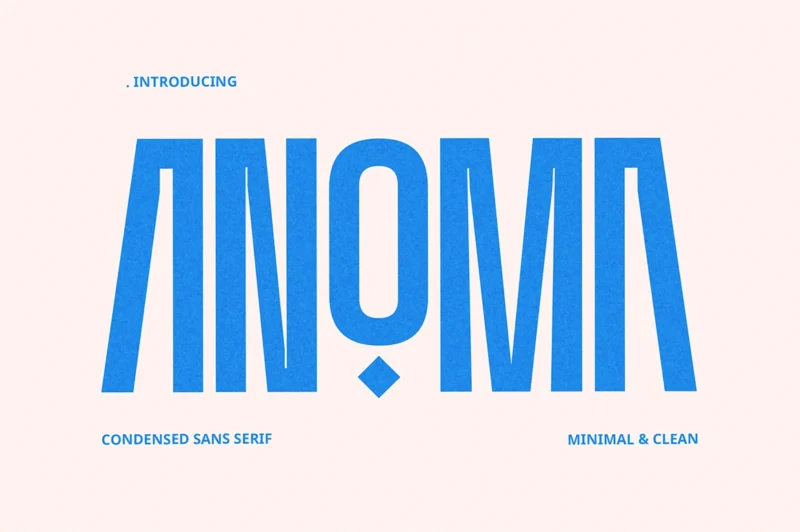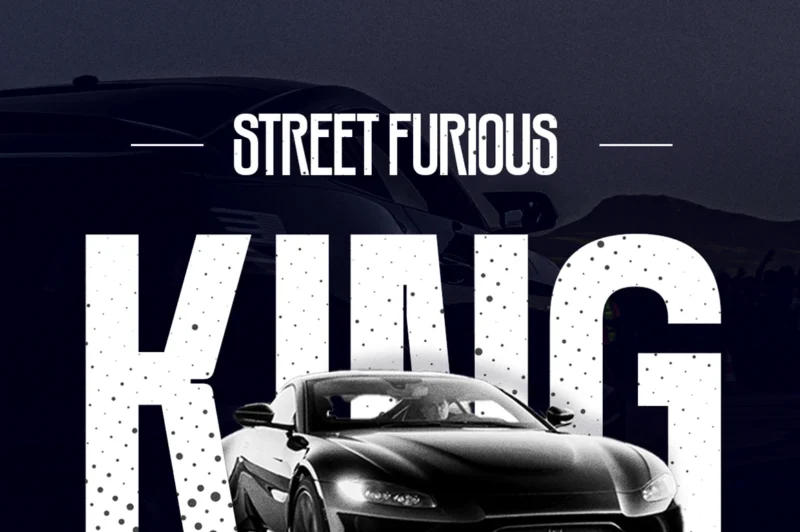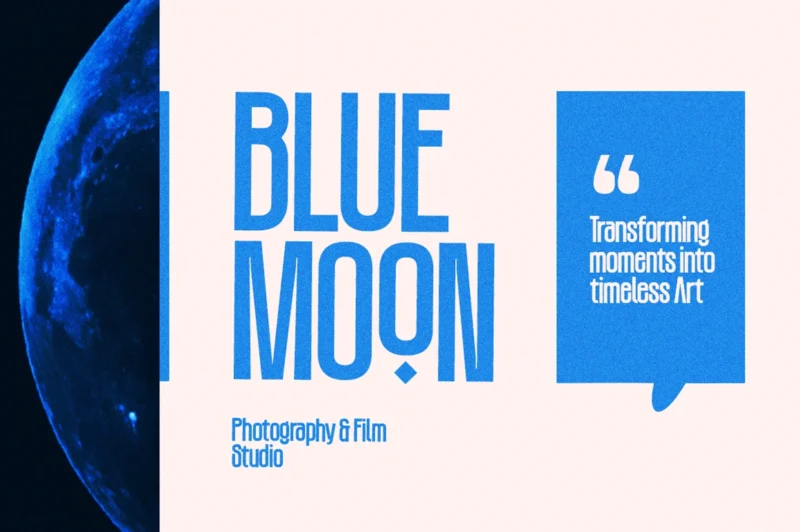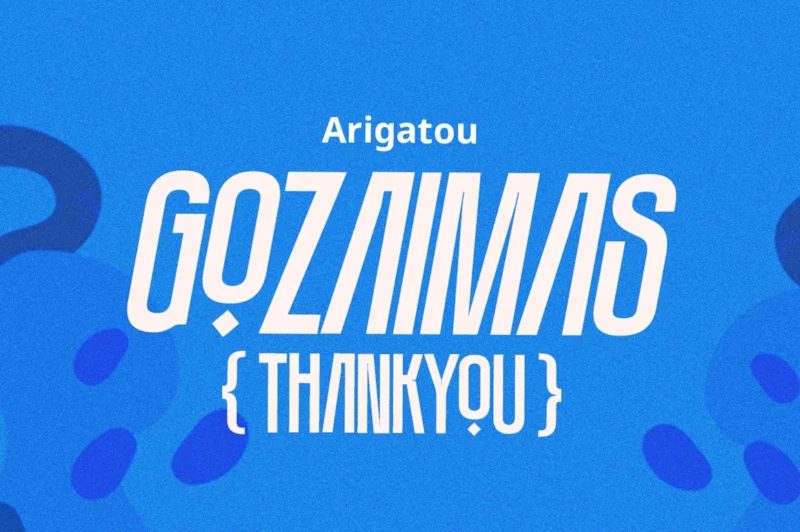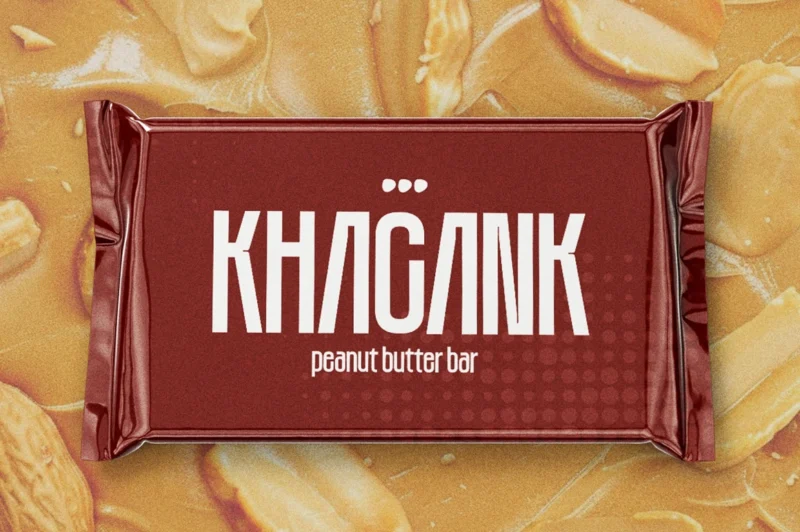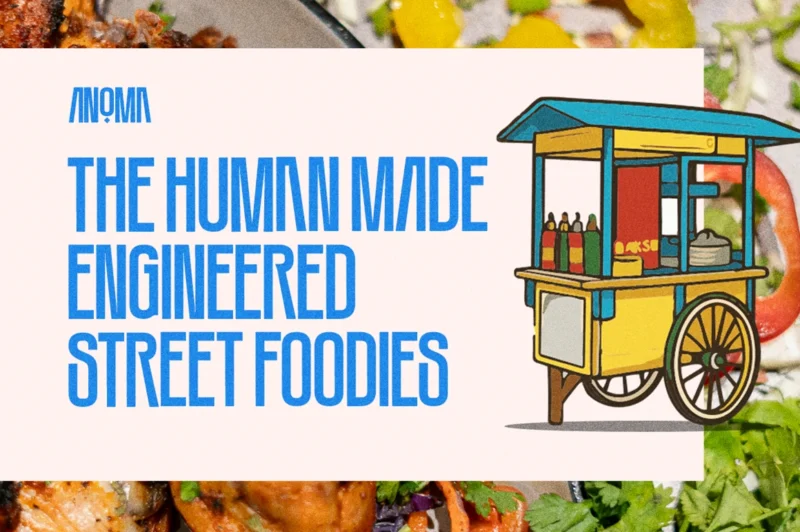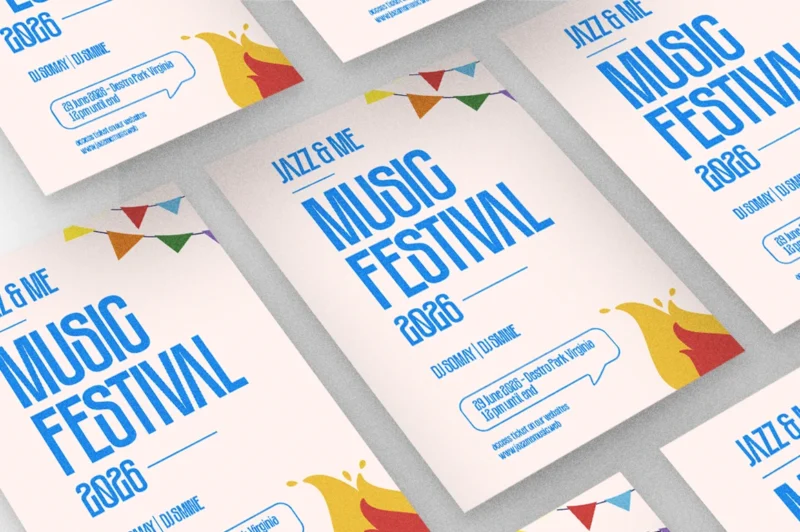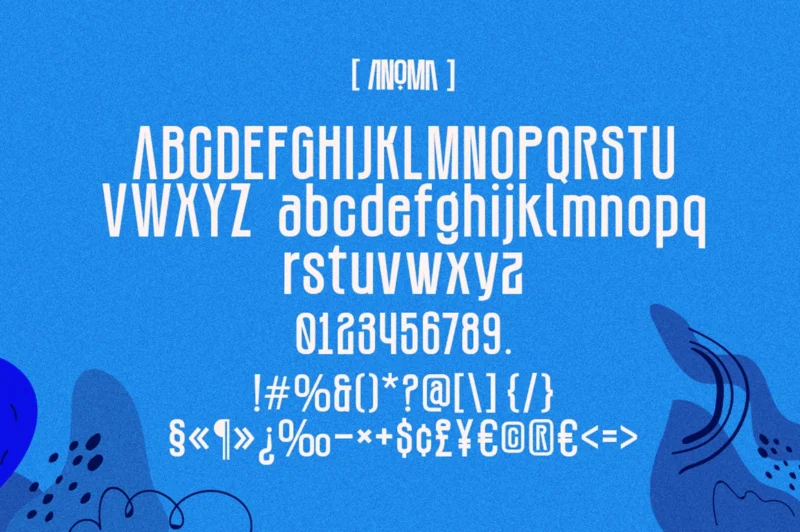
Anoma is a modern condensed sans serif font with a clean, minimal, and classy style. Designed with sleek proportions and refined details, Anoma creates a strong yet elegant look for any design. Perfect for headers, logotypes, branding, posters, packaging, and editorial layouts, this font delivers a stylish and professional appearance while staying simple and easy to read. Its modern character makes Anoma suitable for luxury, fashion, creative, and contemporary design projects. Clean, bold, and versatile — Anoma helps your design stand out with effortless sophistication.
- Basic Latin Glyphs
- Uppercase and Lowercase Letters
- Stylish Alternates
- Numeral and Punctuation
- Currencies
- Multilingual Support